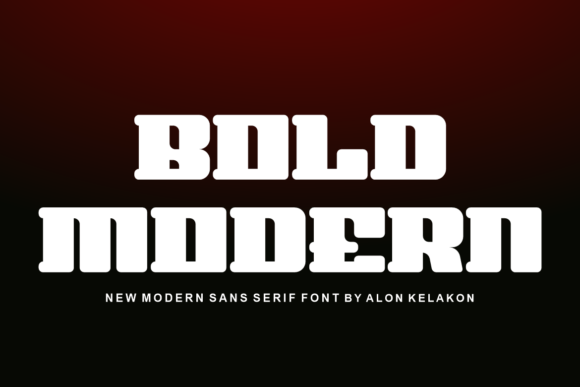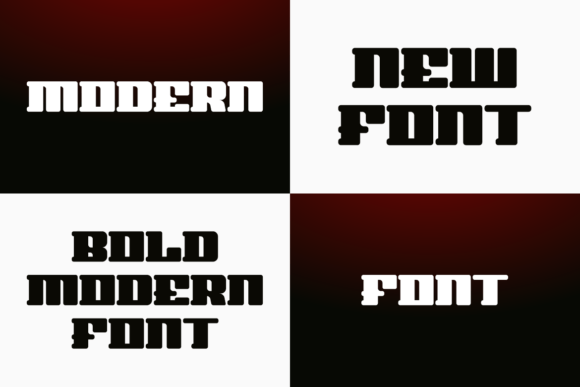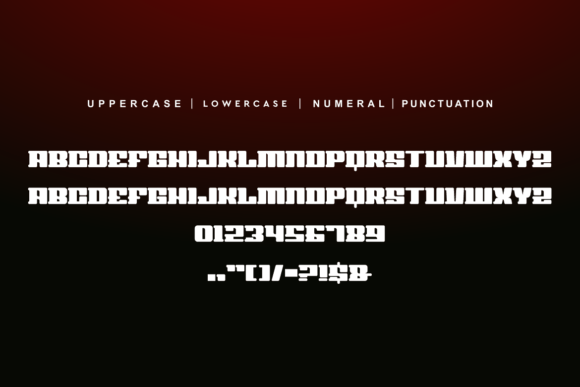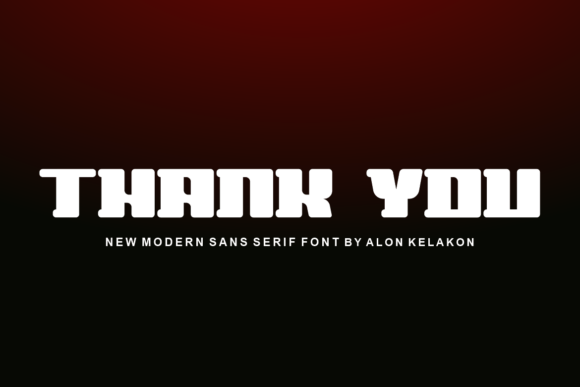
Borekis Font: Elevate Your Designs with a Unique Sans Serif Style
In the world of design, fonts play a crucial role in conveying messages, evoking emotions, and creating visual identities. For designers and crafters looking for a distinctive sans serif font to elevate their projects, Borekis Font is an excellent choice. This versatile font is ready to use for a wide range of designs, including labeling, clothing, movie scenes, posters, movie titles, gigs, album covers, logos, and much more.
What Makes Borekis Font Stand Out?
Borekis Font boasts a unique sans serif design that sets it apart from more traditional fonts. Its clean lines, modern aesthetic, and exceptional legibility make it perfect for both digital and print projects. Whether you’re working on a commercial design or a personal craft project, Borekis Font offers the flexibility and style to make your work stand out.
Key Features of Borekis Font
- Unique Sans Serif Design: Borekis Font features a distinctive sans serif style that adds a contemporary touch to any design.
- High Versatility: Suitable for a wide range of projects, from professional branding and advertising to personal crafts and DIY projects.
- Excellent Legibility: The clean and simple design ensures that your message is conveyed clearly, whether used in large titles or smaller body text.
Use Cases for Borekis Font
The versatility of Borekis Font makes it suitable for numerous applications. Here are some of the most popular use cases:
- Labeling: Add a professional touch to your product labels, making them more attractive and eye-catching.
- Clothing: Design stylish and memorable apparel with Borekis Font, perfect for fashion brands or casual wear.
- Movie Scenes and Titles: Create compelling movie titles or scene headers that capture the essence of your cinematic project.
- Posters: Whether for advertising, events, or informational purposes, Borekis Font can help your poster stand out.
- Gigs and Event Flyers: Promote your music gigs, workshops, or any events with stylish and readable typography.
- Album Covers: Give your music a visual identity that resonates with your audience, using Borekis Font for your album covers.
- Logos: Create modern and impactful logos for your brand, ensuring a memorable first impression.
Tips for Using Borekis Font Effectively
To maximize the impact of Borekis Font in your designs, consider the following tips:
- Experiment with Sizes: Borekis Font maintains its elegance and legibility across various sizes, making it perfect for both headings and body text.
- Play with Colors: While Borekis Font looks great in black and white, experimenting with colors can add an extra layer of personality to your design.
- Combine with Other Fonts: Don’t be afraid to pair Borekis Font with other fonts to create contrast and visual interest in your designs.
Borekis Font is a powerful tool for designers and crafters looking to infuse their projects with a modern, sans serif style. Its versatility, legibility, and unique design make it an excellent choice for a multitude of applications. Whether you’re creating professional branding materials or personal craft projects, Borekis Font can help elevate your designs to the next level.